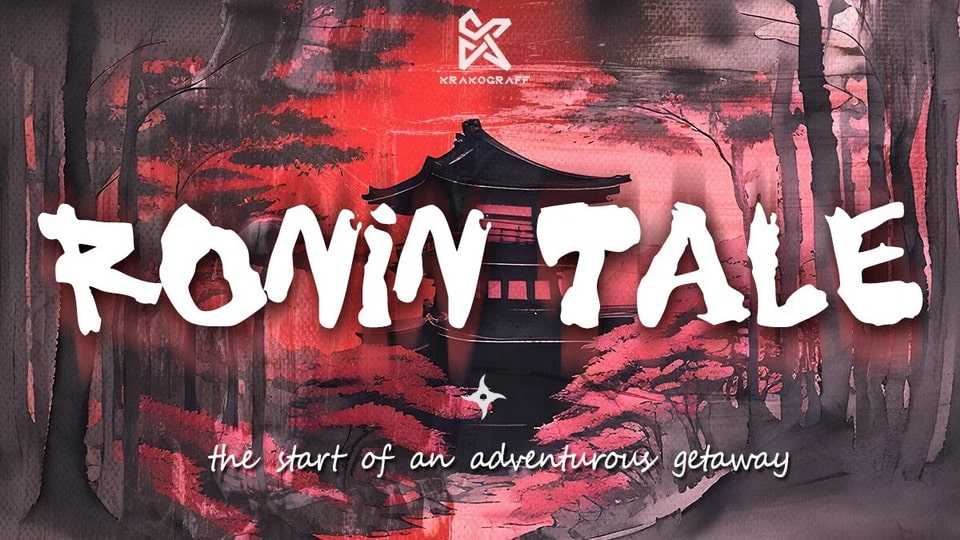
Download Ronin Tale font, a hand painted brush typefaceinspired by the captivating artistry of Japanese calligraphy. The font captures the spirit of the traditional ink and brush, embodying the harmonious balance between boldness and subtlety.
Designer: Krakograff